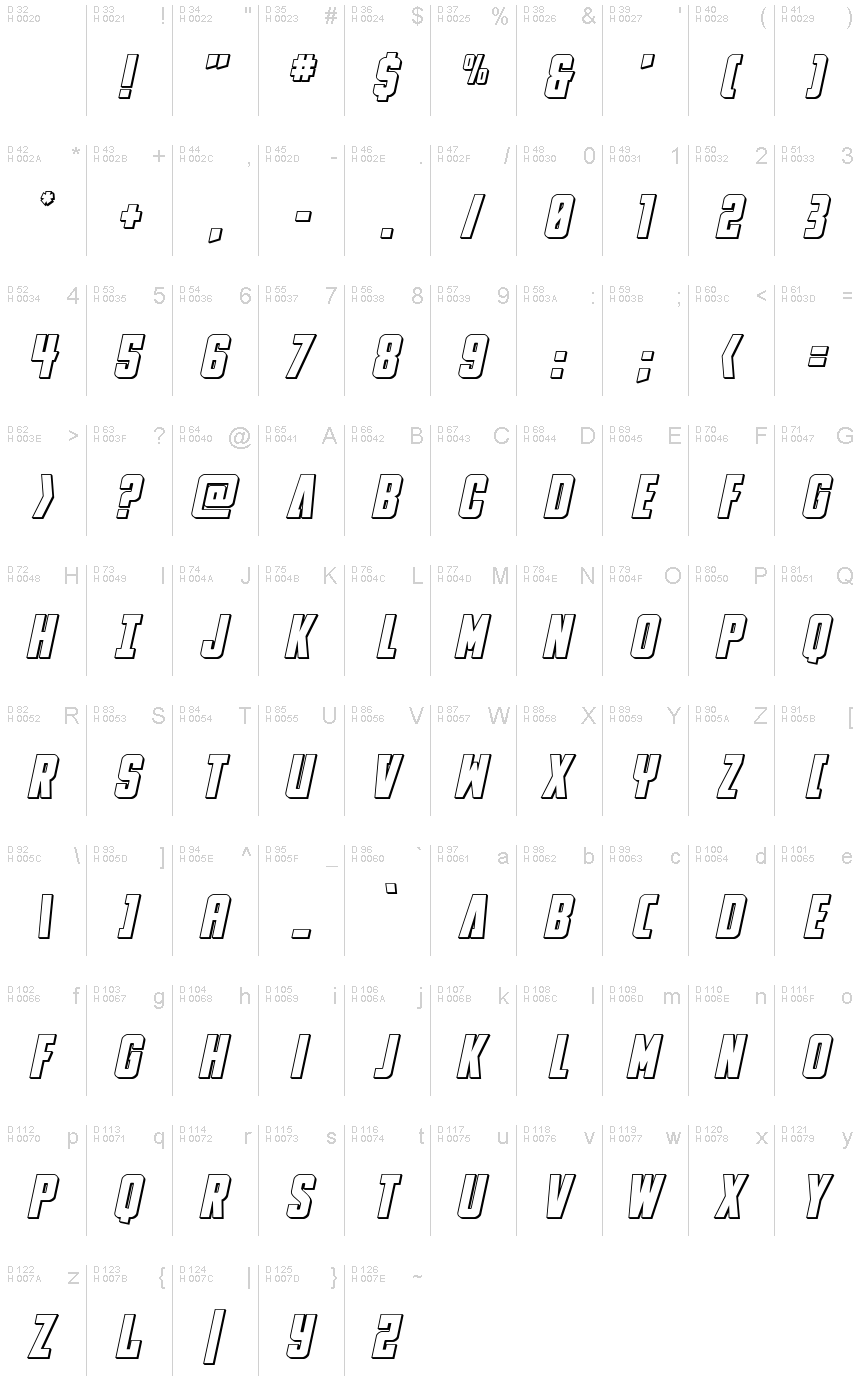
DiaClone 3D Italic
DiaClone 3D Italic by Iconian Fonts is a bold statement in the realm of display typography. Its 3D techno style exudes modernity and digital sophistication, while its italic stance adds dynamism to every character. The font's condensed form makes for a compact and impactful visual presence that is hard to overlook.
The assertive presence of DiaClone 3D Italic lends itself exceptionally well to creative projects that aim to stand out. Think eye-catching headings in advertising, striking titles in gaming interfaces, or even attention-grabbing graphics on apparel. In any space where a futuristic edge is required, this font takes center stage, delivering messages with undeniable punch and flair.